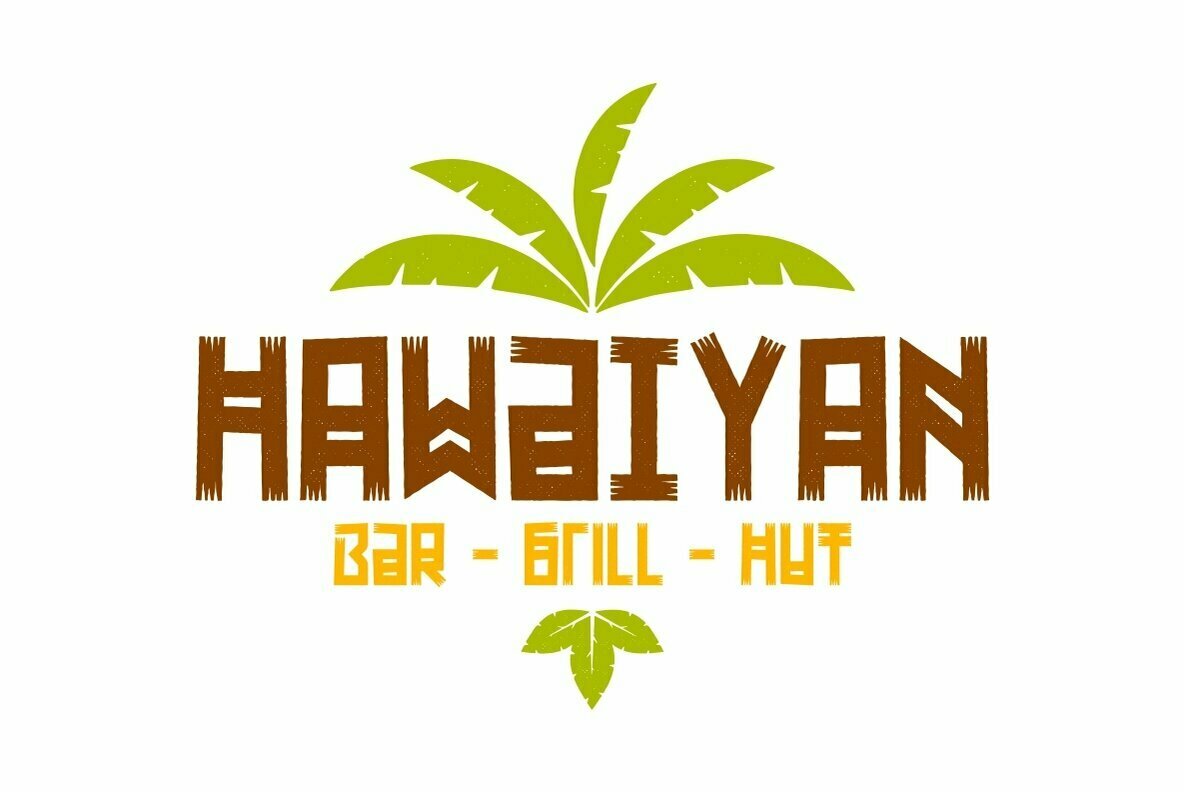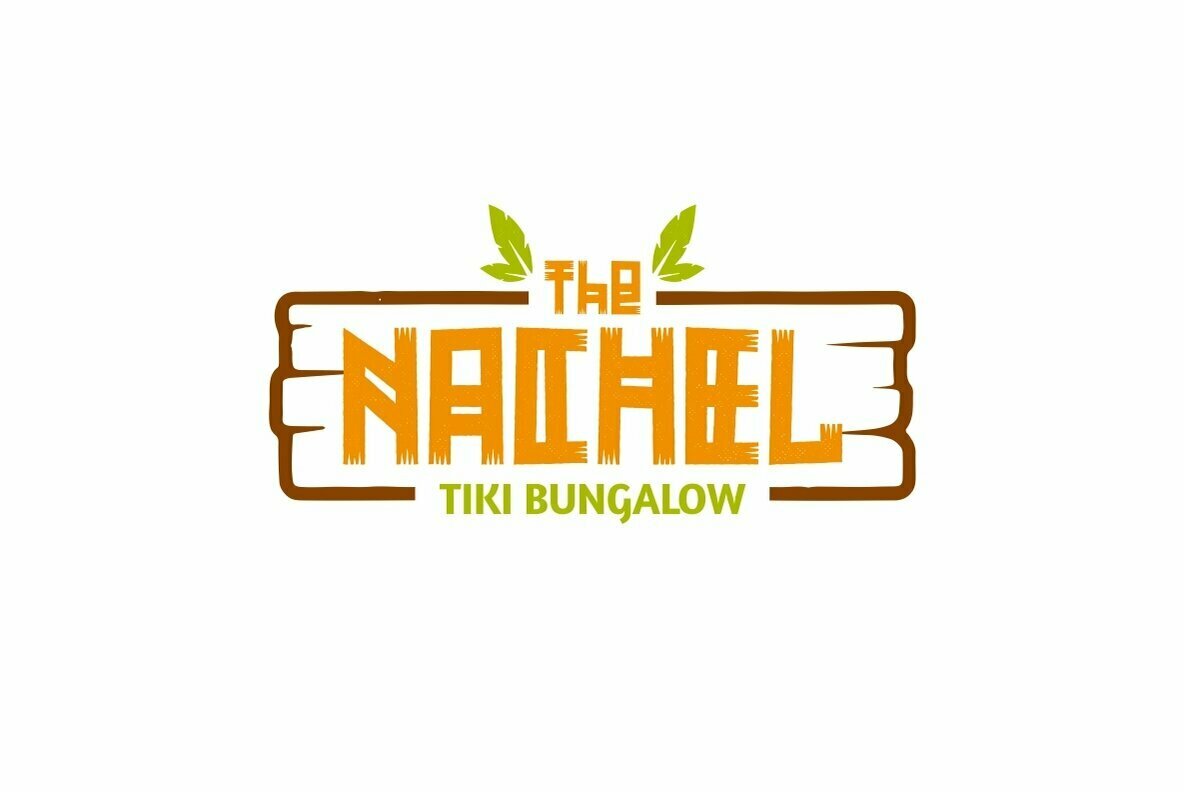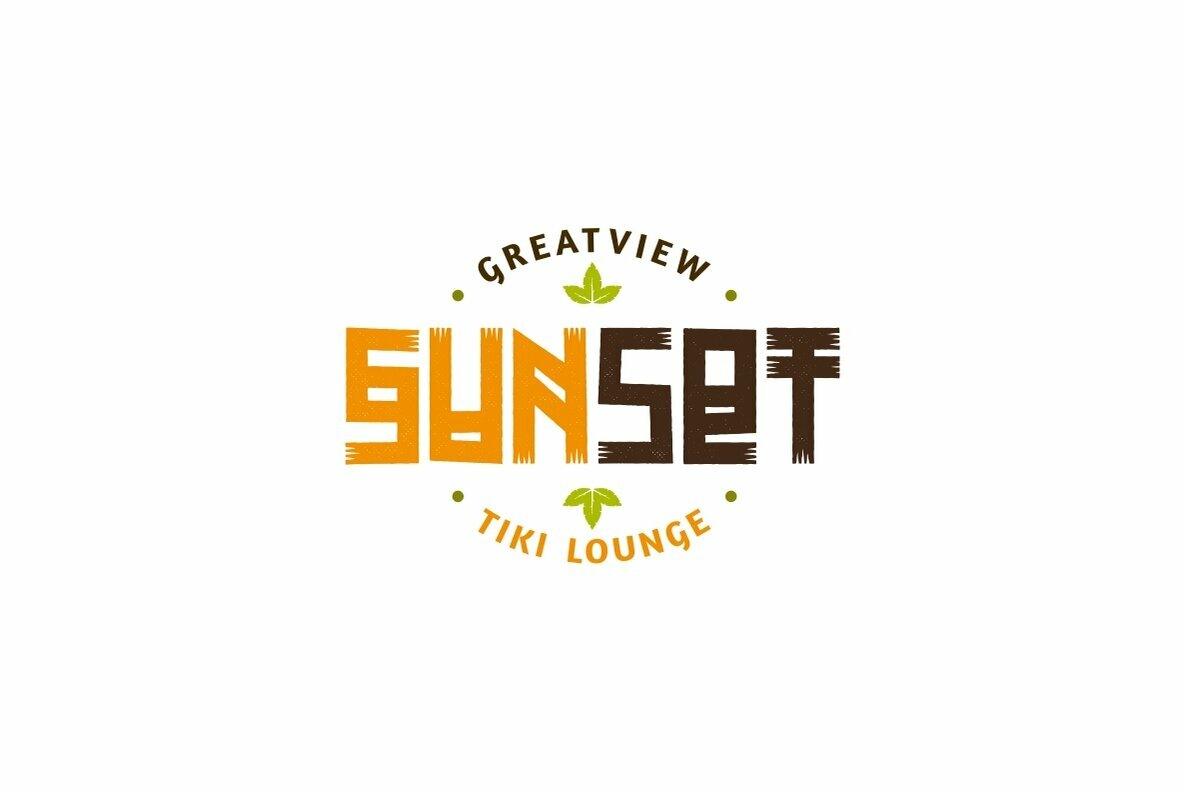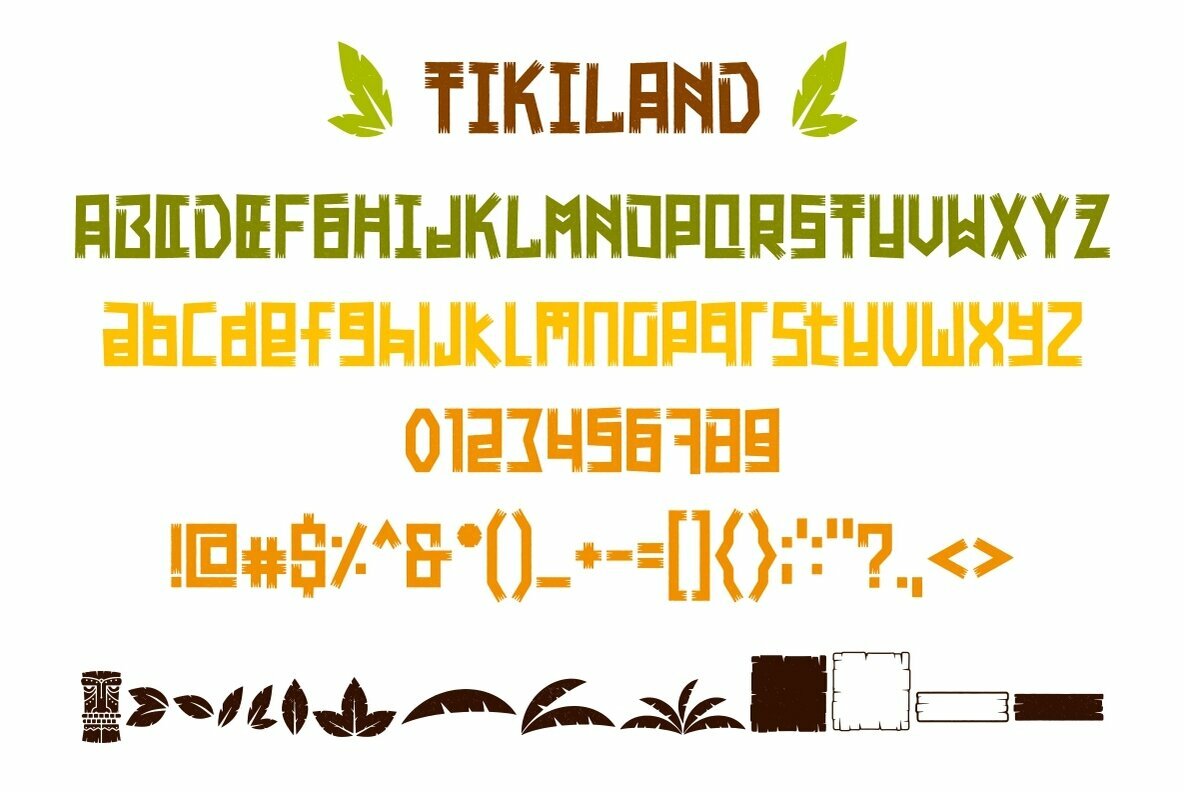
Tikiland: A Playful Display Typeface for Creative Designs
Add a touch of whimsy to your projects with Tikiland, a dynamic display typeface designed to infuse personality into every composition. Perfect for a range of applications, this typeface helps transform titles into eye-catching features and logos into memorable brand identifiers.
• Logos and Headlines – Delivers bold statements with flair.
• Product Packaging – Enhances visual appeal with unique character.
• Social Media & Merchandise – Creates engaging visuals that stand out.
• Greeting Cards & More – Adds a personal touch with its playful style.